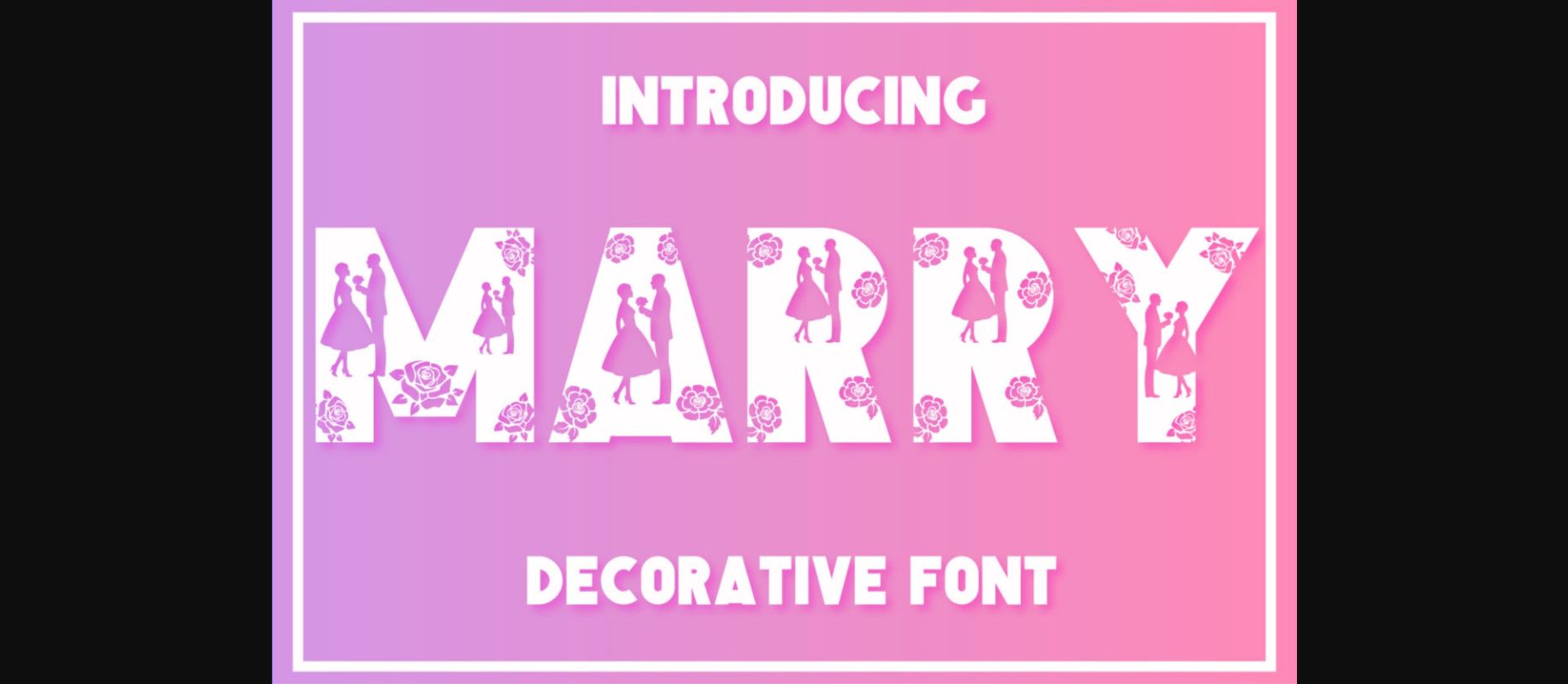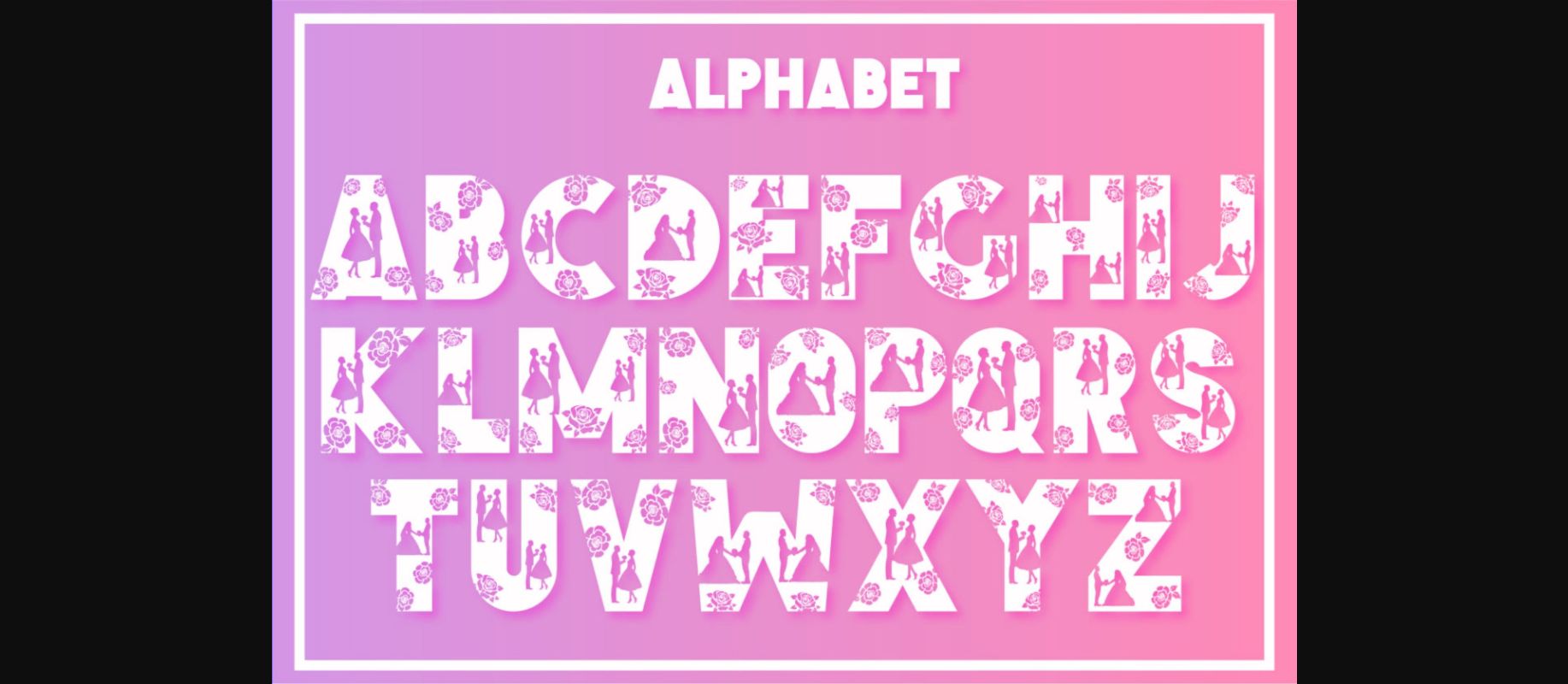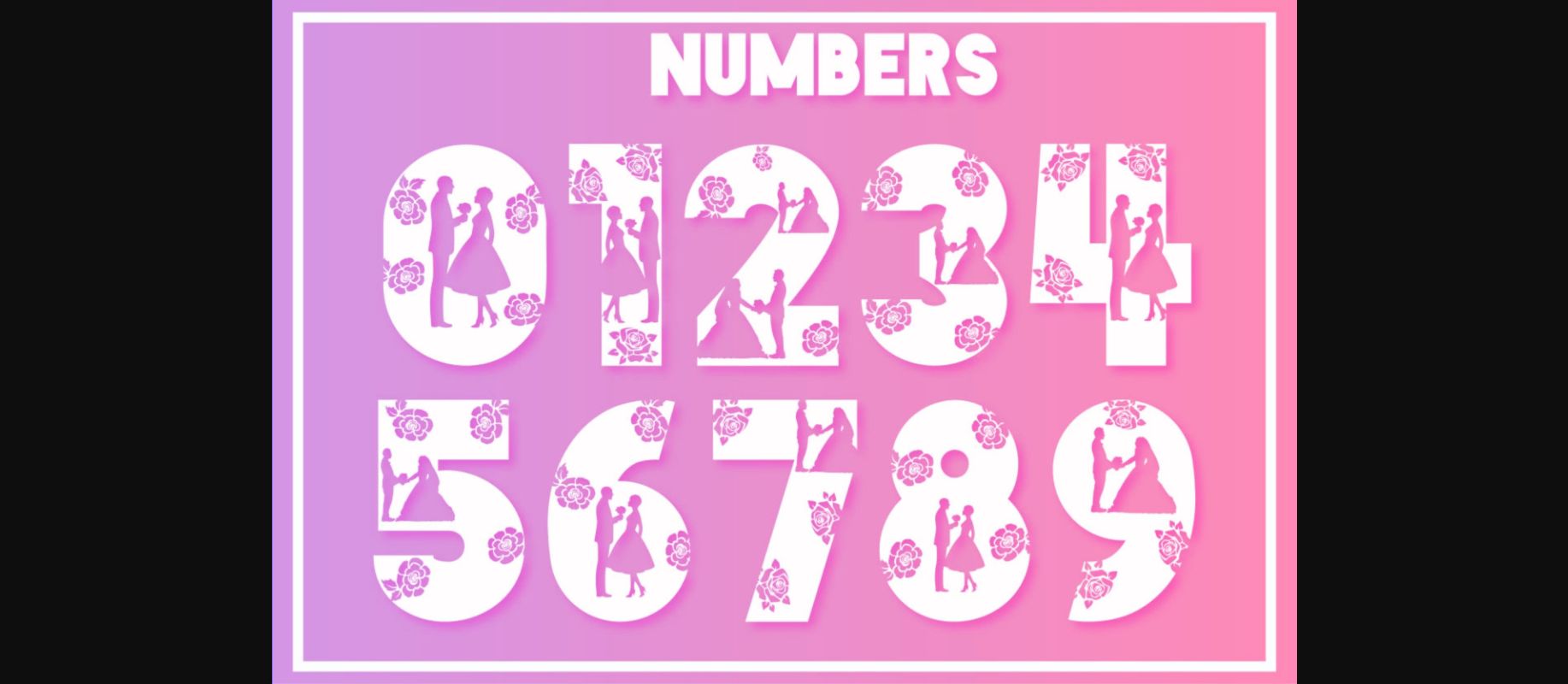
Marry Font
About Marry Font
Marry is an incredibly cool and interestingly designed decorative font. Add this fashionable font to your library and explore its endless possibilities.